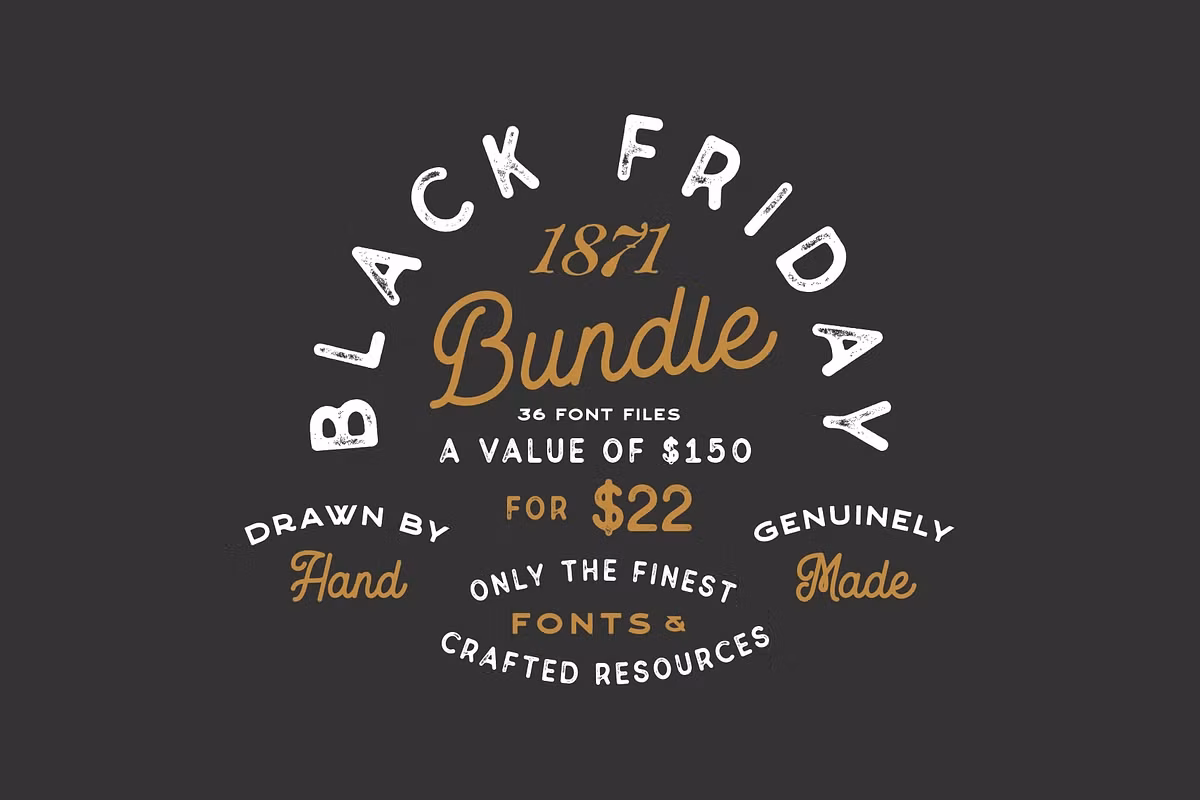
1871 Black Friday Bundle Free Download is an exclusive and value-packed font bundle that includes a collection of carefully curated fonts designed for a variety of design projects. This bundle offers a mix of bold, elegant, and modern fonts, perfect for creating impactful branding, logos, headlines, and more.
Whether you're working on a Black Friday promotion, seasonal marketing, or need versatile fonts for various projects, this bundle offers the flexibility to make your designs stand out with style. From sleek sans-serifs to creative display fonts, 1871 Black Friday Bundle provides you with all the tools you need to elevate your typography.
Make your Black Friday campaigns and designs unforgettable with the diverse, high-quality fonts from the 1871 Black Friday Bundle!